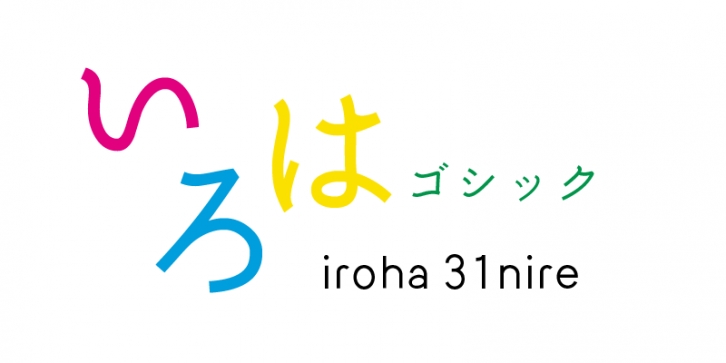
Iroha 31nire’s kana characters are based on a gothic style verison of MaruminOld. With the look of a brush-script, it has a compact and cute design.
The same Ideographic (kanji) characters are shared by all the Iroha variations. Kanji characters of Iroha are designed with linear strokes and simple structures. There are 12 kana variants.